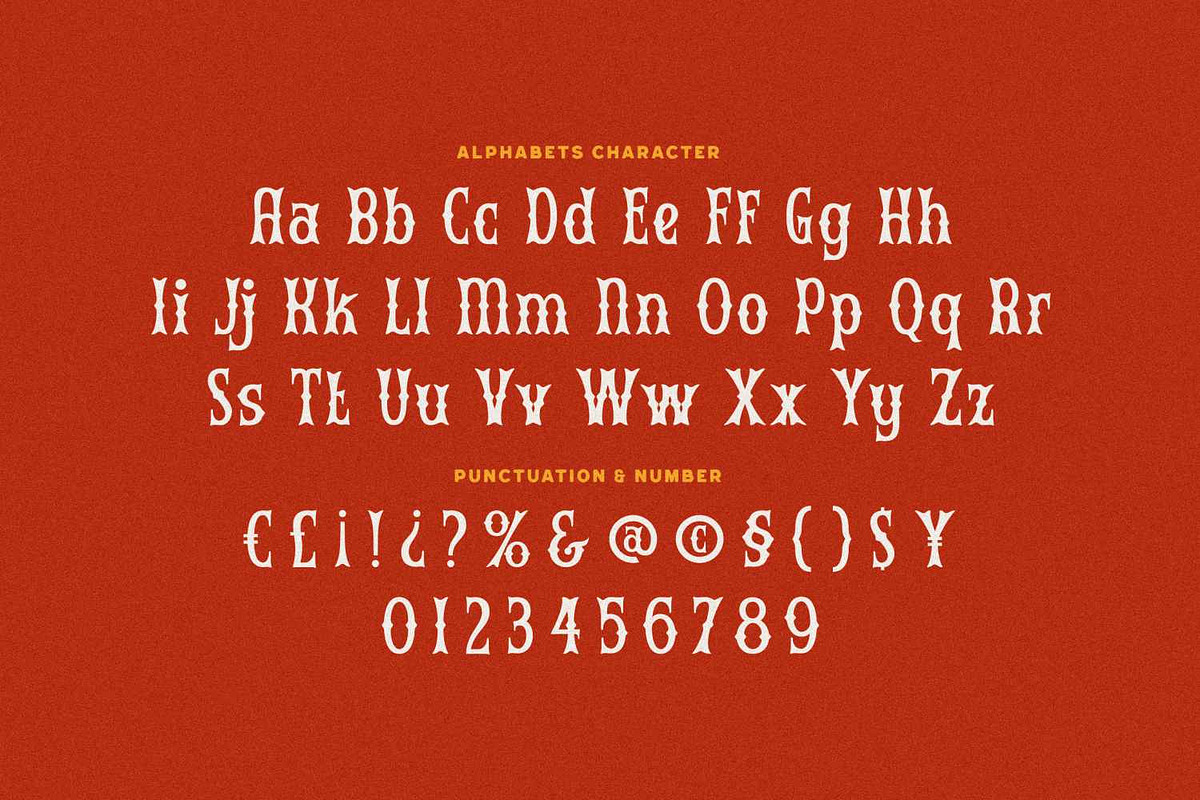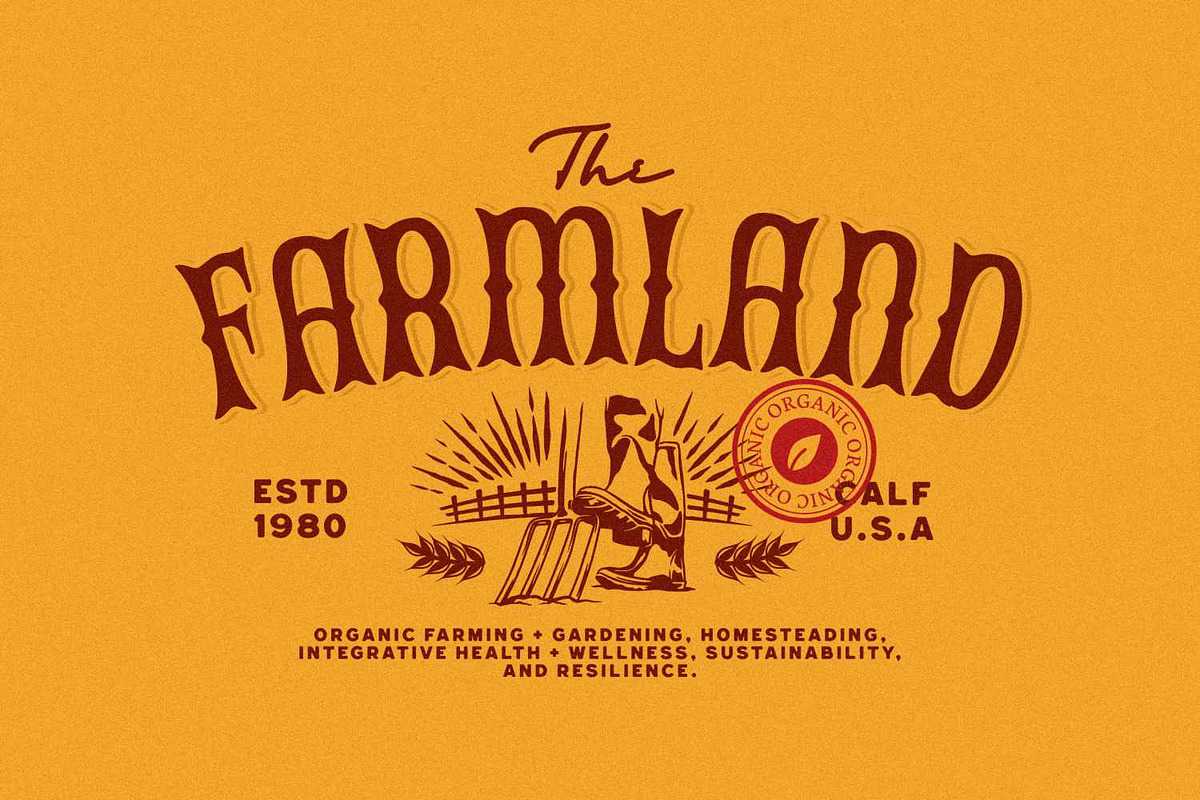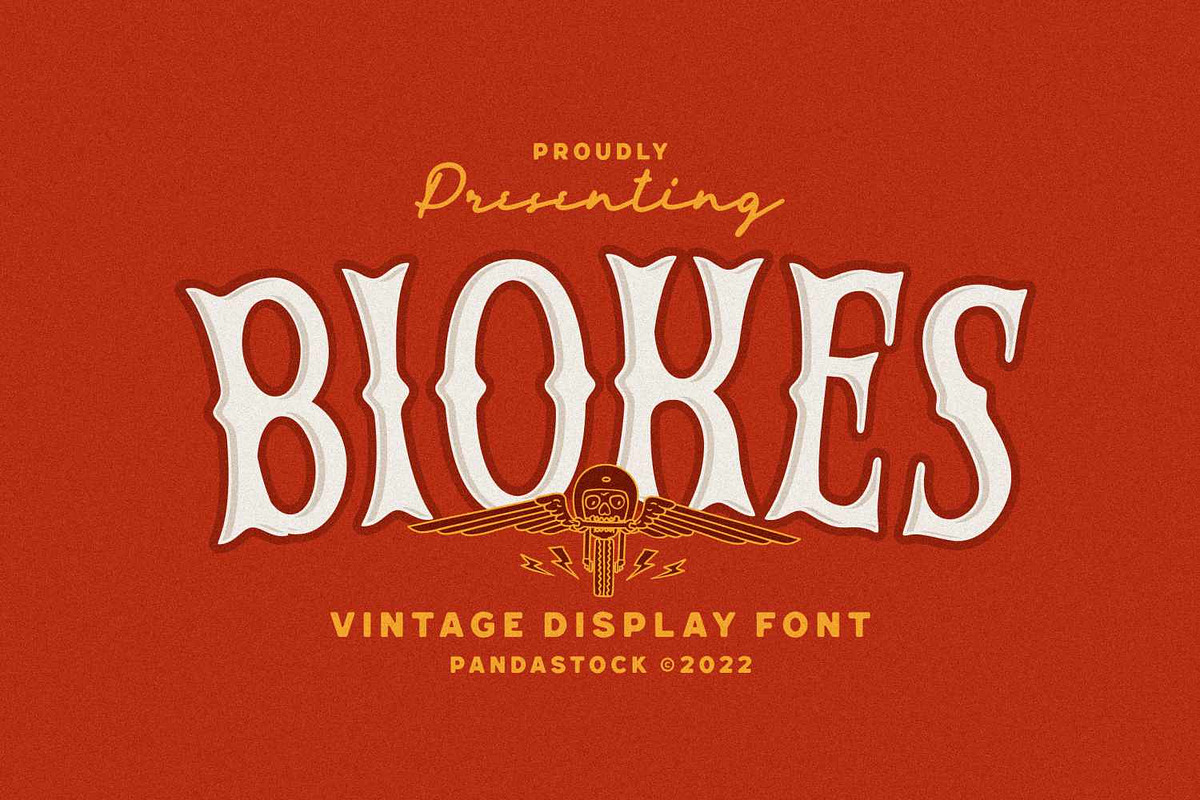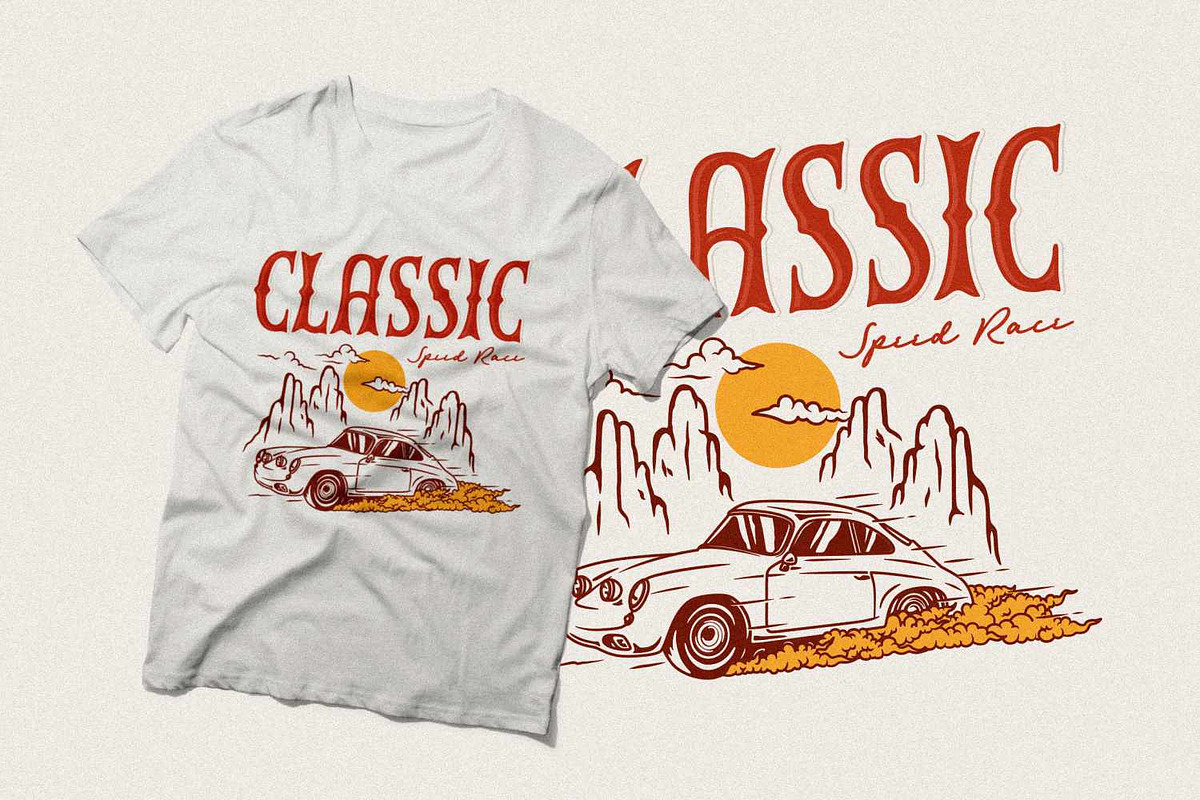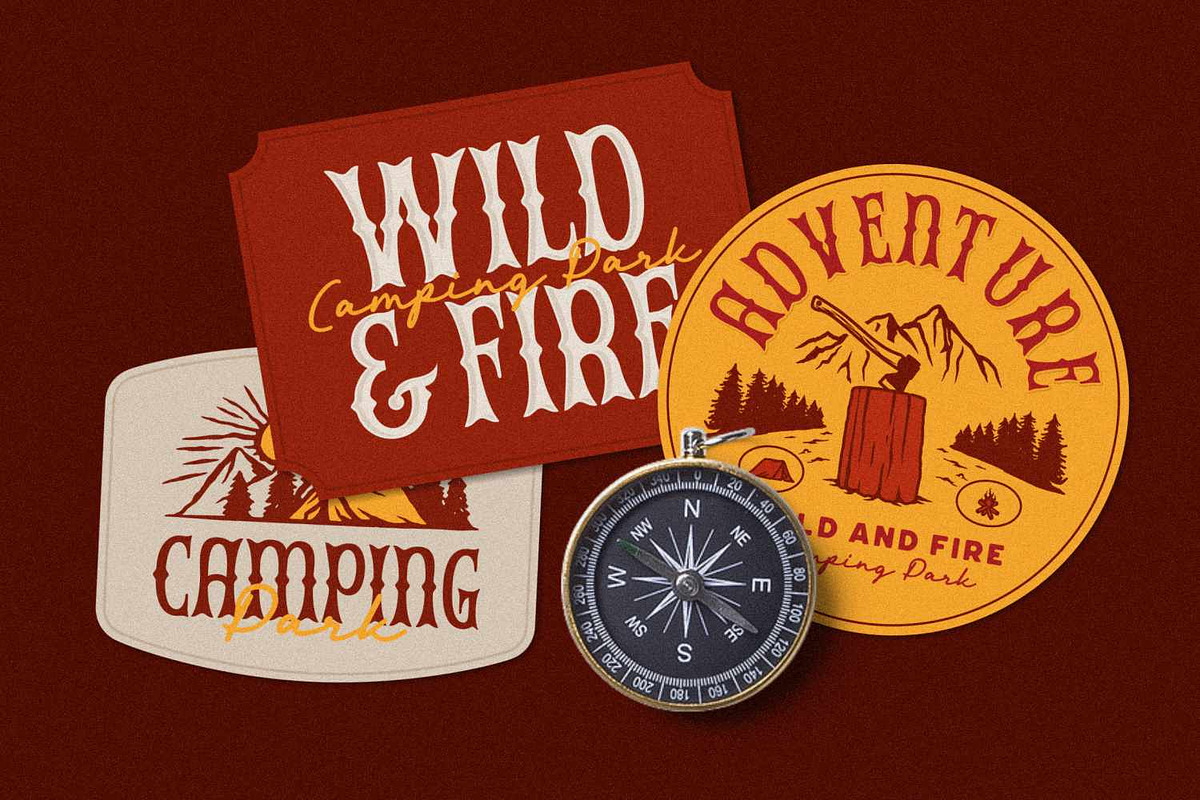
Biokes - Vintage Display Font
Biokes is a vintage display font with a strong retro vibe, perfect for designs that want to evoke nostalgia and rugged charm. Its distinctive, slightly distressed serif letterforms feature uneven edges and quirky curves, giving it a hand-crafted, old-school feel.
It's an ideal font for vintage-themed branding, retro posters, signage, t-shirt designs, outdoor, adventure, or travel-related designs (think camping, motorbikes, road trips), and any project that wants to channel a classic americana or rustic vibe.
- Punctuation, Number, and Symbol
- Multilingual Support ÀÁÂÃÄÅÆÇÈÉÊËÌÍÎÏÐÑÒÓÔÕÖØÙÚÛÜÝ